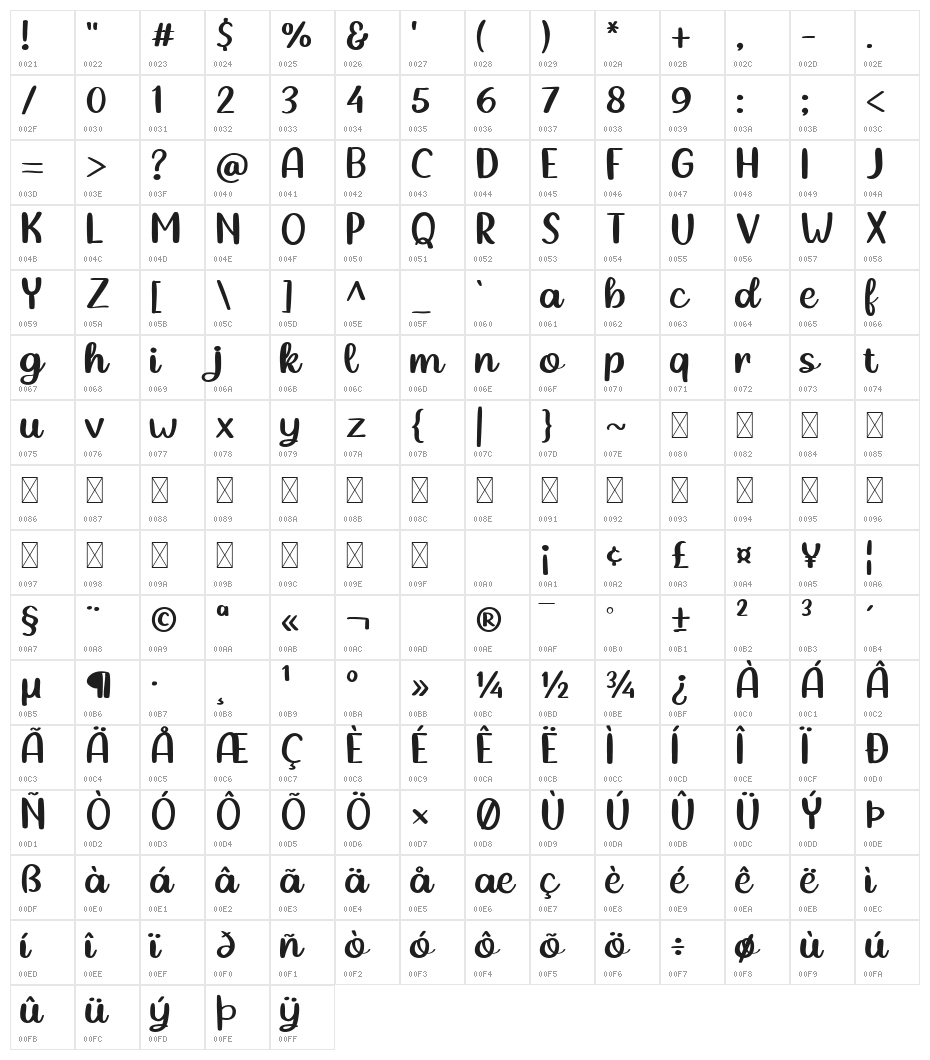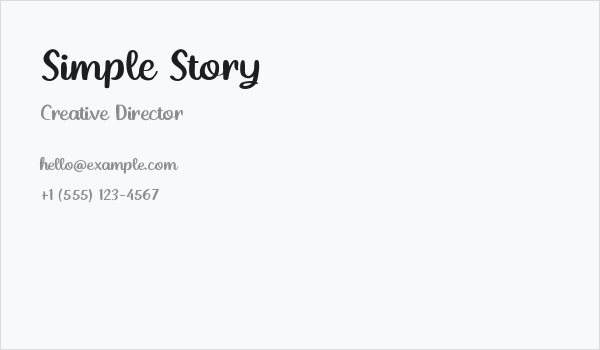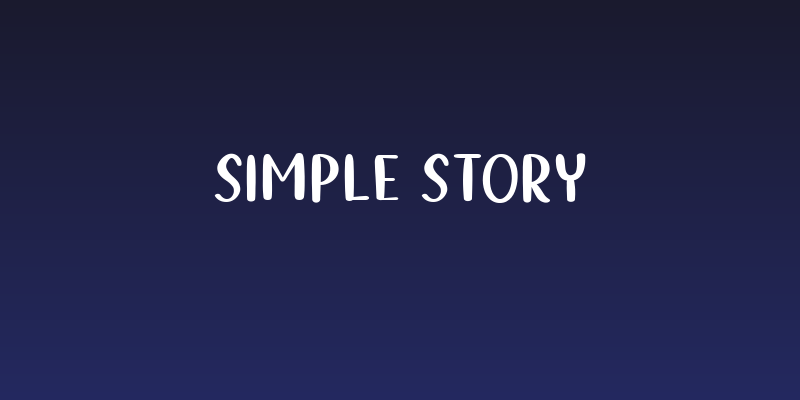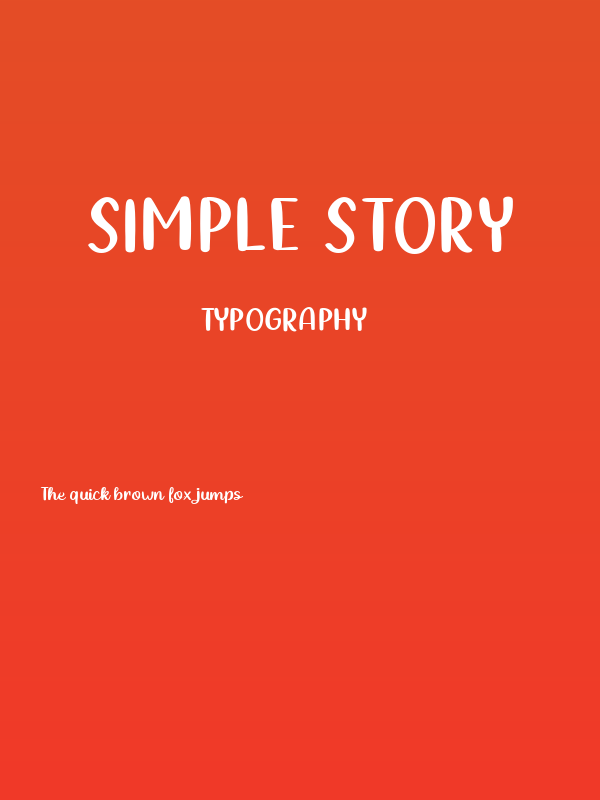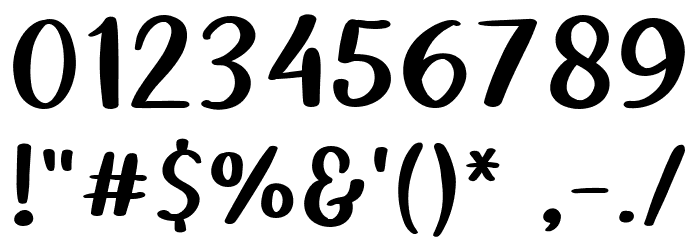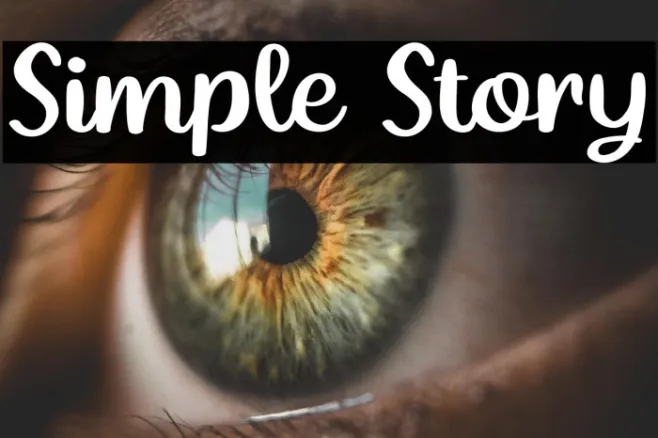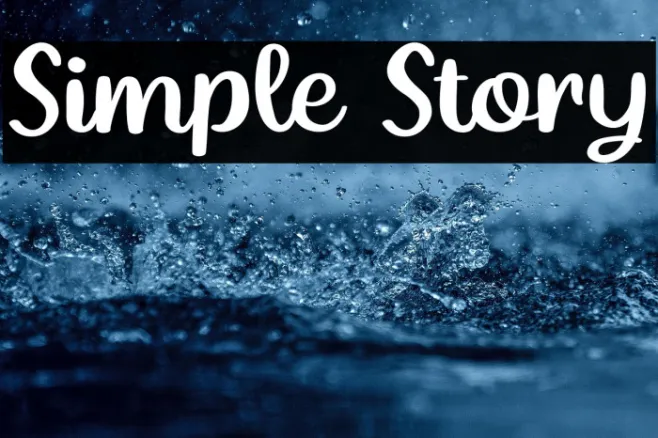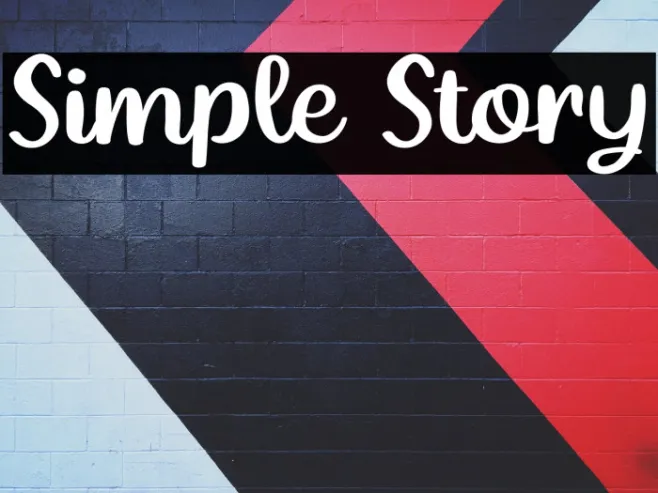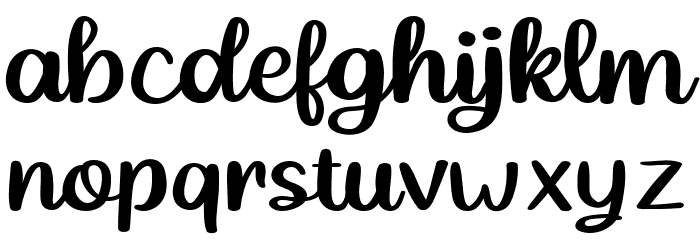
Simple Story Font
Simple Story Description
This font features a playful and whimsical style with rounded edges and a hand-drawn appearance. The uppercase letters are bold and slightly condensed, giving a strong presence, while the lowercase letters maintain a consistent flow with a slight slant, adding to the casual and friendly feel. The numbers and special characters are designed to match the overall aesthetic, ensuring a cohesive look across all text elements. The strokes are uniform in thickness, providing a balanced and harmonious appearance. This font is ideal for projects that require a touch of personality and charm.
| Proposed Projects | Great for children's books, greeting cards, playful branding, and social media graphics. |